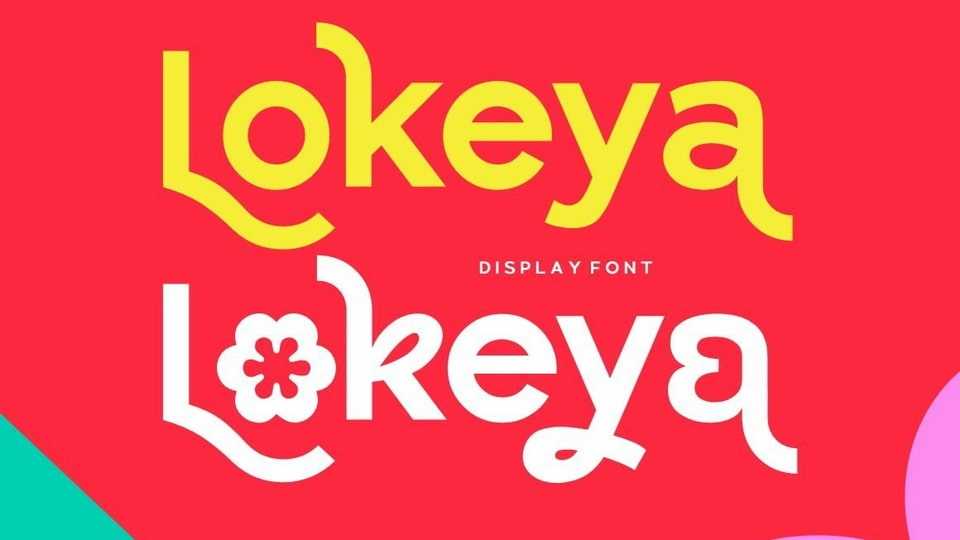
Download Lokeya font, a clean, cute, modern and playful sans serif typeface. Lokeya is perfect for branding projects, logo design, clothing branding, product packaging, magazine headers, or any kind of advertising purpose.